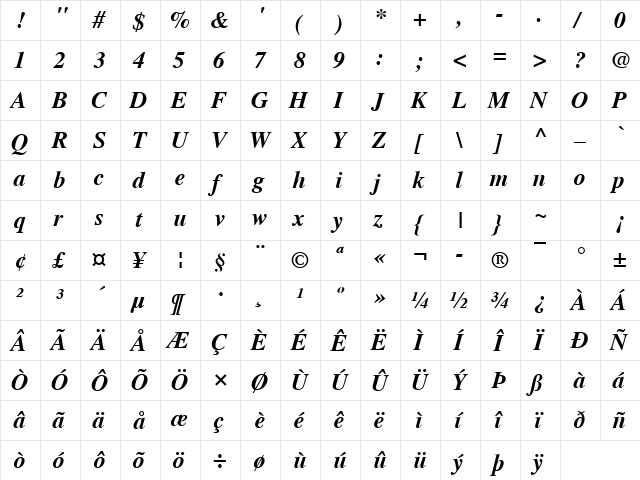
Nimbus Roman Becker No9L Bold Italic Font Preview
Design Context for Nimbus Roman Becker No9L Typeface
Nimbus Roman Becker No9L takes a measured approach to typography — its balanced proportions and neutral character make it a reliable workhorse for both digital and print work. Its italic angle brings a sense of urgency and motion to the letterforms. The heavy weight commands attention and anchors typographic hierarchies.
Pro Tip: Use Nimbus Roman Becker No9L for emphasis, pull quotes, and subheadings where its slanted energy can add rhythm to the layout.